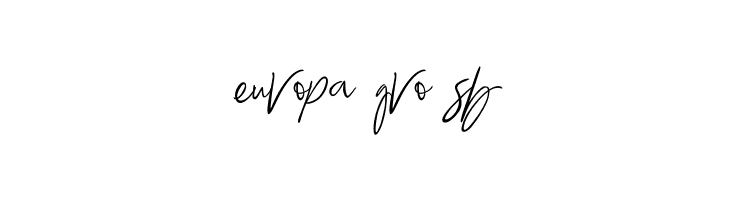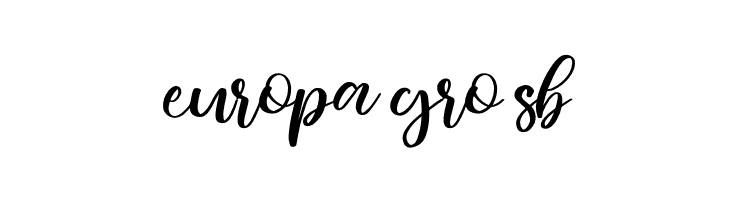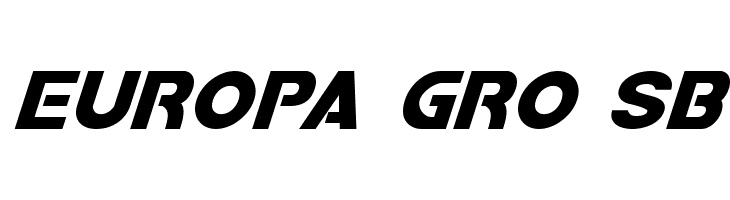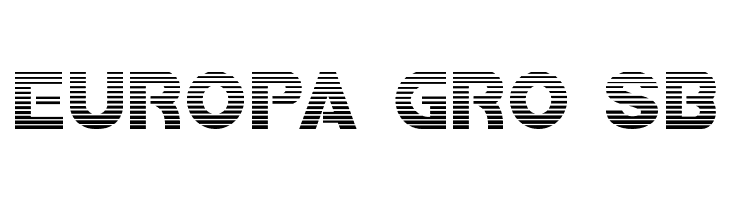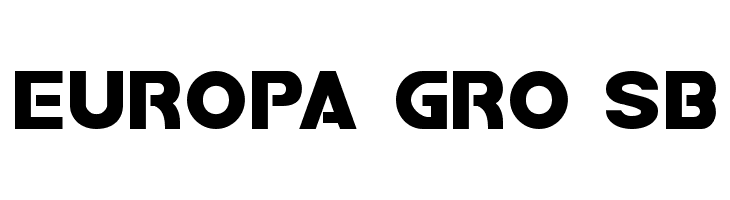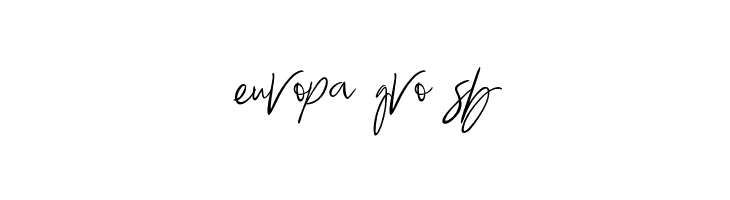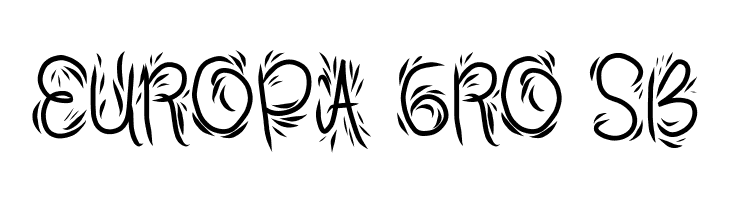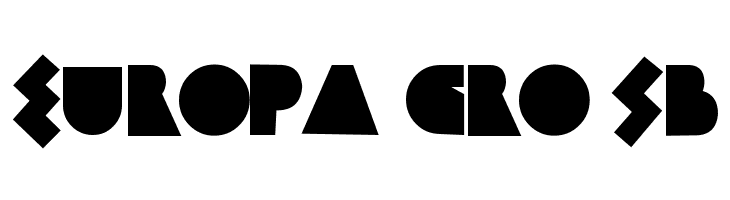
• Bamboozler
A bold, geometric font with sharp angles and a modern style.
• bambu
A decorative font with intricate, nature-inspired bamboo-like patterns.
• Bamby Demo
A lively and elegant script font with a handwritten appearance.
• Bamella Italic
A modern, cursive font with a flowing, handwritten style.
• Bamella Italic
A cursive, handwritten font with elegant curves and a calligraphic style.
• Bamf
A bold, geometric font with a modern and striking design.
• Bamf Gradient
A bold, futuristic font with a gradient line effect and high contrast.
• Bamf Italic
• Bammantoe
A stylish and flowing script font with elegant, fluid strokes.
• Bammantoe
A lively, cursive font with elegant loops and a handwritten style.